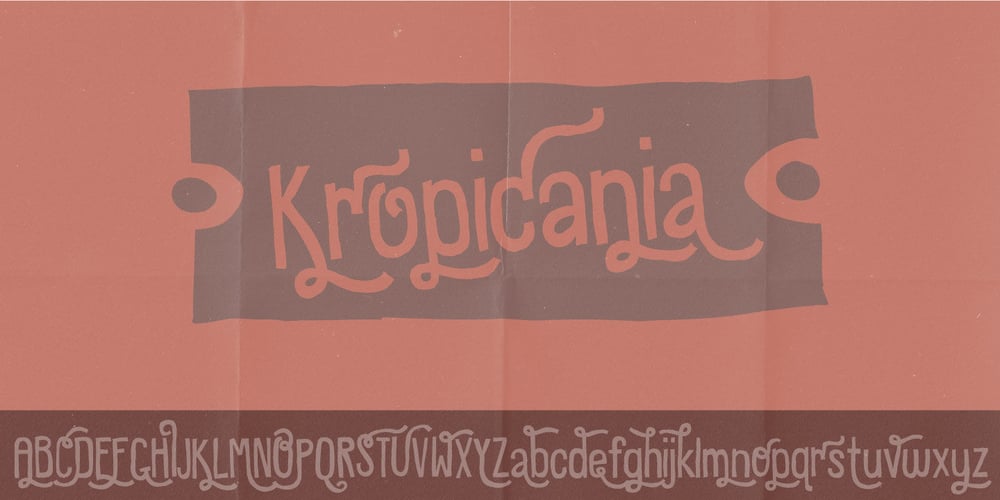
Kropicania Font Family was designed by Jakob Fischer and published by PizzaDude.dk. Kropicania contains 2 styles and family package options. Sometimes beauty comes from an unexpected angle, and has got nothing to do with good looks. Despite the sometimes clumbsy appearence, Kropicania comes with loads of inner beauty. There are several versions of each letter – both UPPERcase and lowercase – to choose from, as well as fancy ligatures for double letters. Spice up your invitations, postcards, headlines or whatever with this handmade font. At first look Kropicania appears to be just-another-handmade-font, but once you begin to play with swashes, ligatures and alternates, the magic begins! Try it out, you won’t be dissapointed! If you need some extra charm and life to your project, use one of the many ornaments that comes along with this font! Stars, arrows, borders and inkblobs … just to name a few!